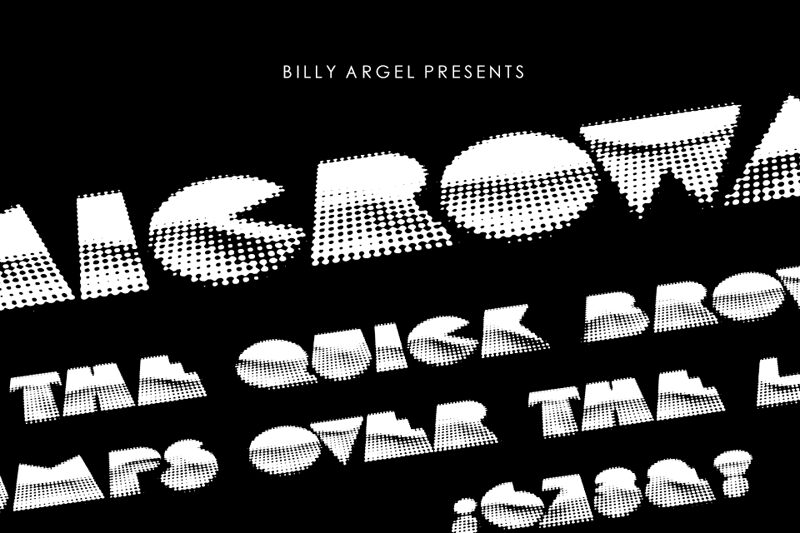
MICROWAVES PERSONAL USE Regular
Microwaves, designed by Billy Argel Fonts, is a display font that embodies a futuristic aesthetic. With its extra-bold weight and extra-expanded width, Microwaves commands attention and makes a bold statement. This font is well-suited for a range of projects where an edgy and cutting-edge look is desired.
From sci-fi movie posters to technology company logos, Microwaves brings a sense of modernity and innovation to any design. Its sleek lines and distinct character shapes make it perfect for creating eye-catching headlines, titles, and branding materials.